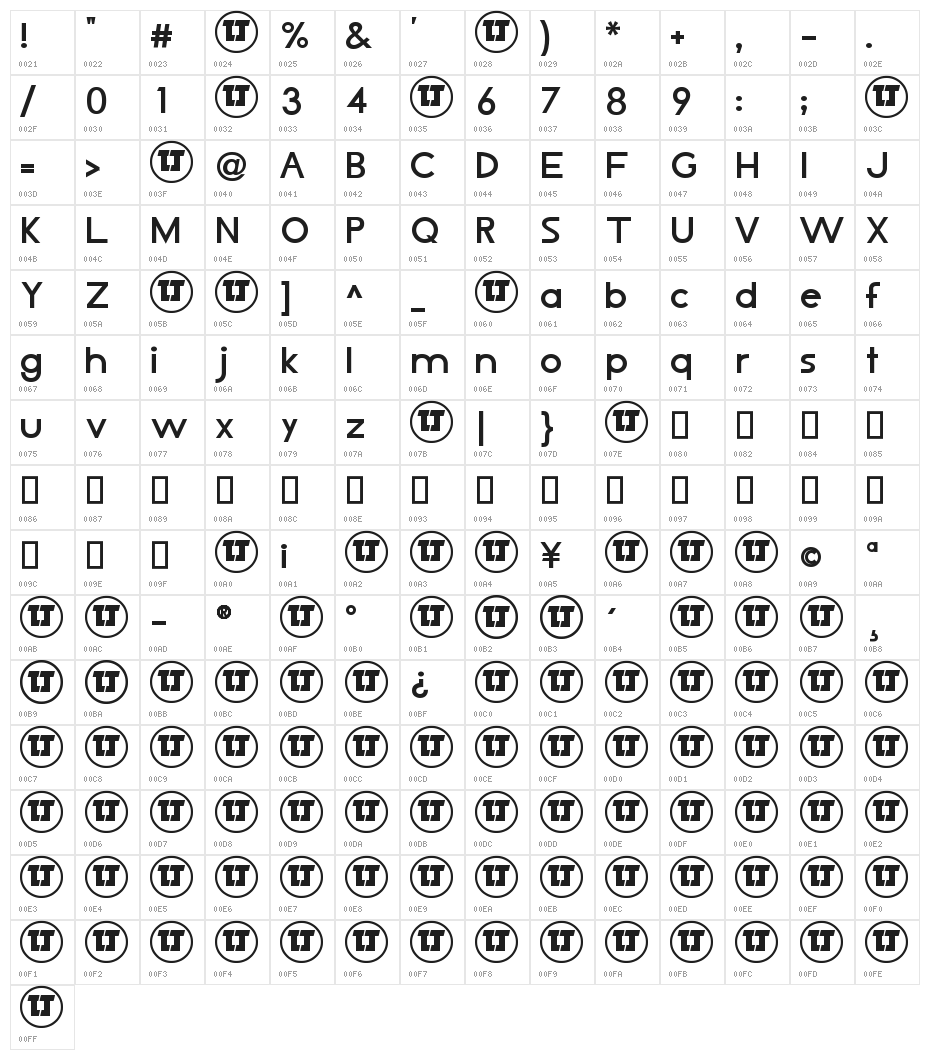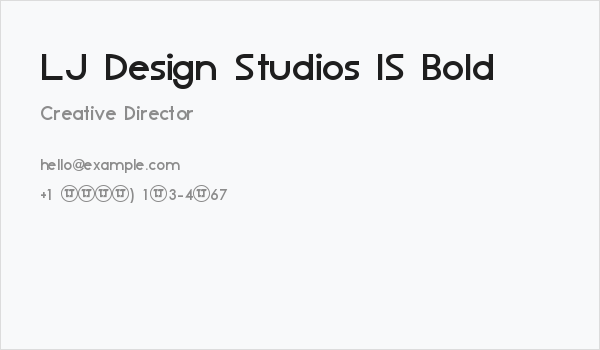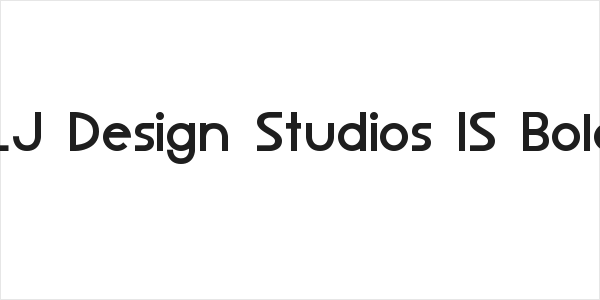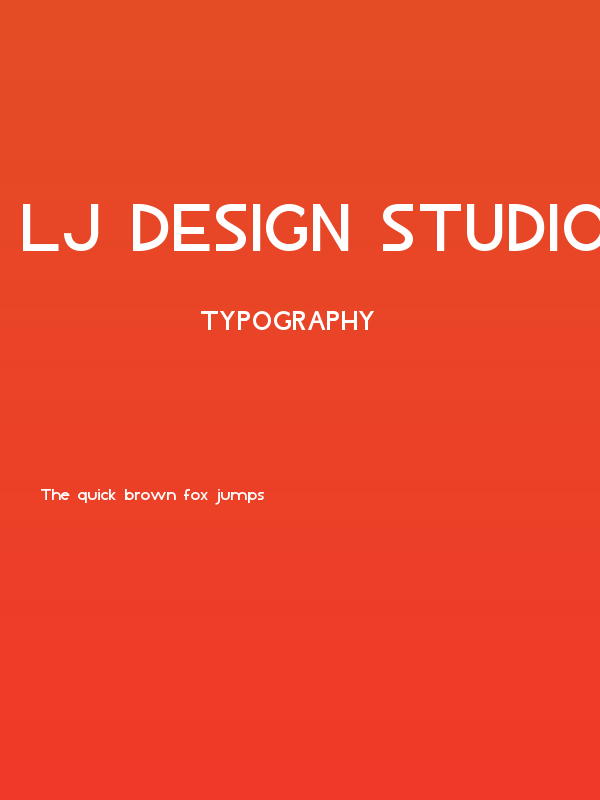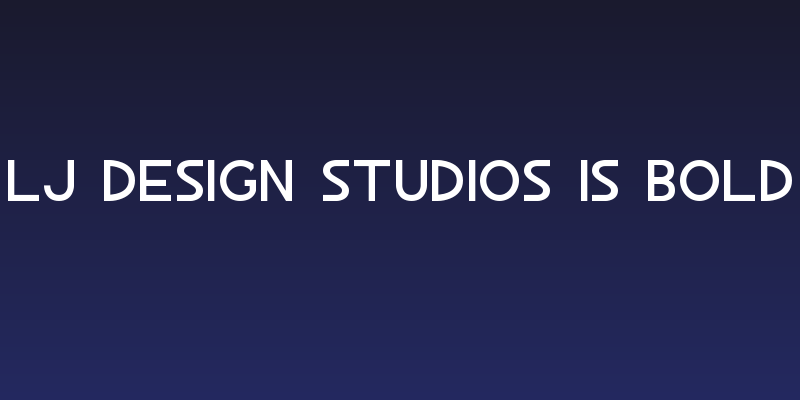
LJ Design Studios IS Bold Font
LJ Design Studios IS Bold Description
This font features a bold and modern sans-serif style with clean, geometric lines. The uppercase and lowercase letters maintain a consistent weight, providing a uniform appearance across all characters. The numerals are distinct and easy to read, with a slight emphasis on circular forms. Special characters are well-integrated, maintaining the font's overall aesthetic. The design is straightforward yet impactful, making it suitable for a variety of applications where clarity and modernity are desired.
| Proposed Projects | Ideal for branding, advertising, headlines, and digital content where a modern and bold statement is needed. |